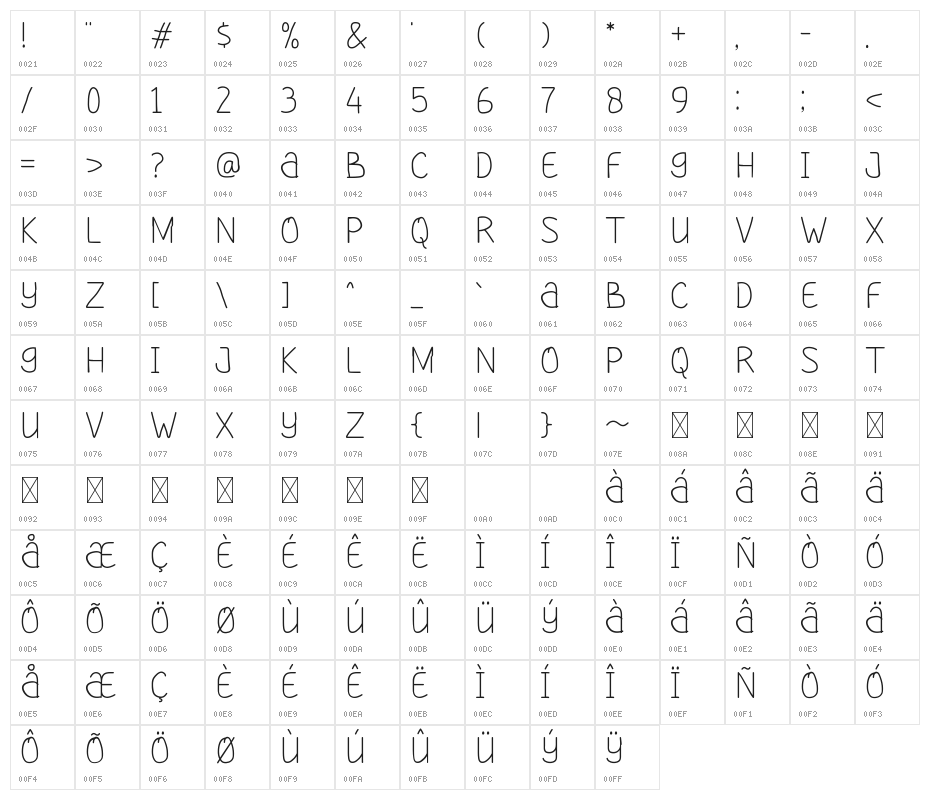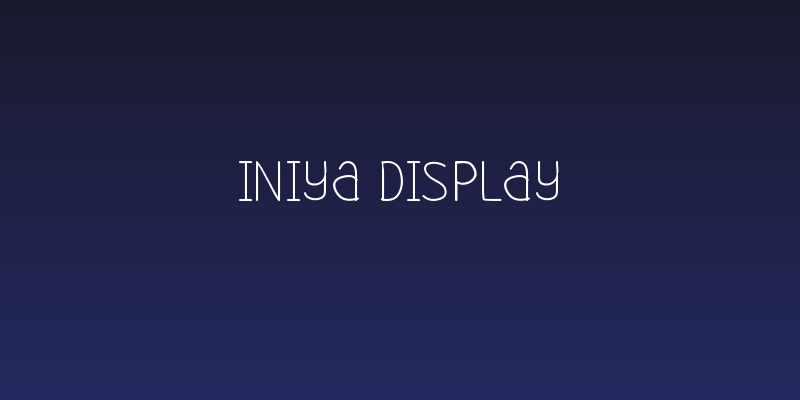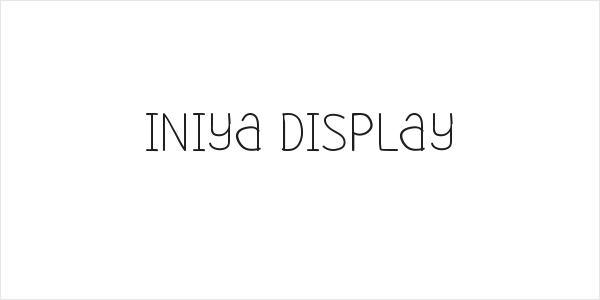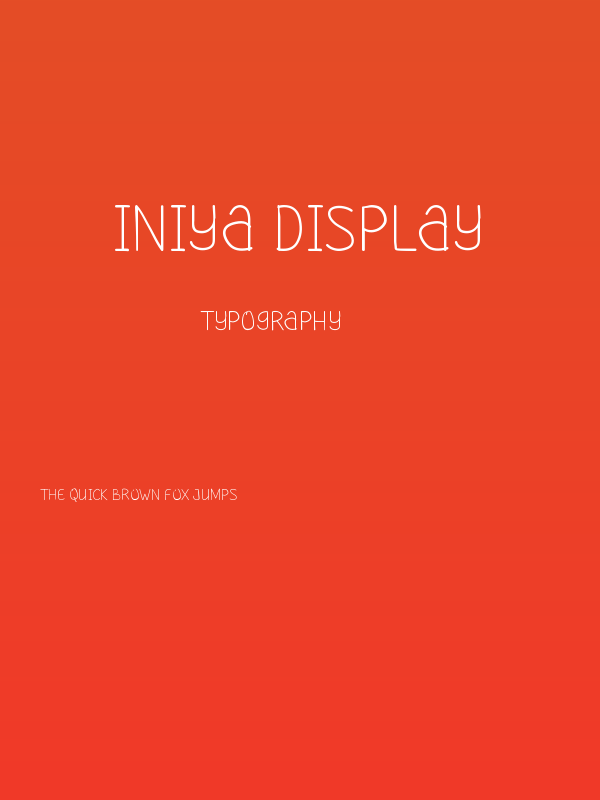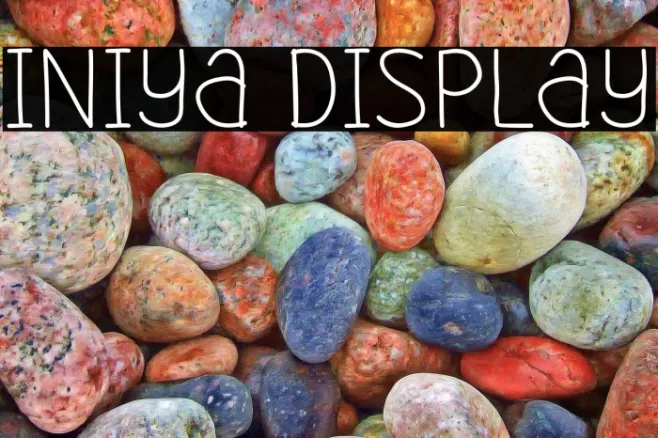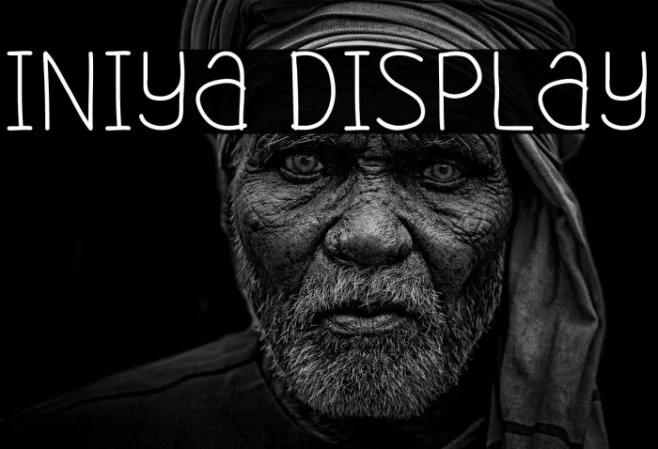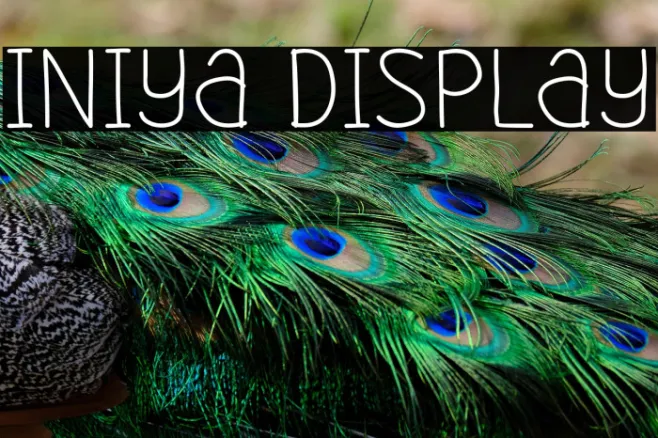
Iniya Display Font
Iniya Display Description
This font features a playful and casual handwritten style, characterized by its smooth, flowing lines and rounded edges. The letters are evenly spaced, providing a clean and approachable appearance. The uppercase and lowercase letters maintain a consistent height, contributing to a harmonious look. The numerals and special characters are designed with the same playful aesthetic, making them easily readable and visually appealing. This font's simplicity and charm make it versatile for various design projects, adding a personal touch without compromising on legibility.
| Use Case | Headlines, Informal text, Branding |
| Proposed Projects | Ideal for greeting cards, children's books, casual branding, and social media graphics. |